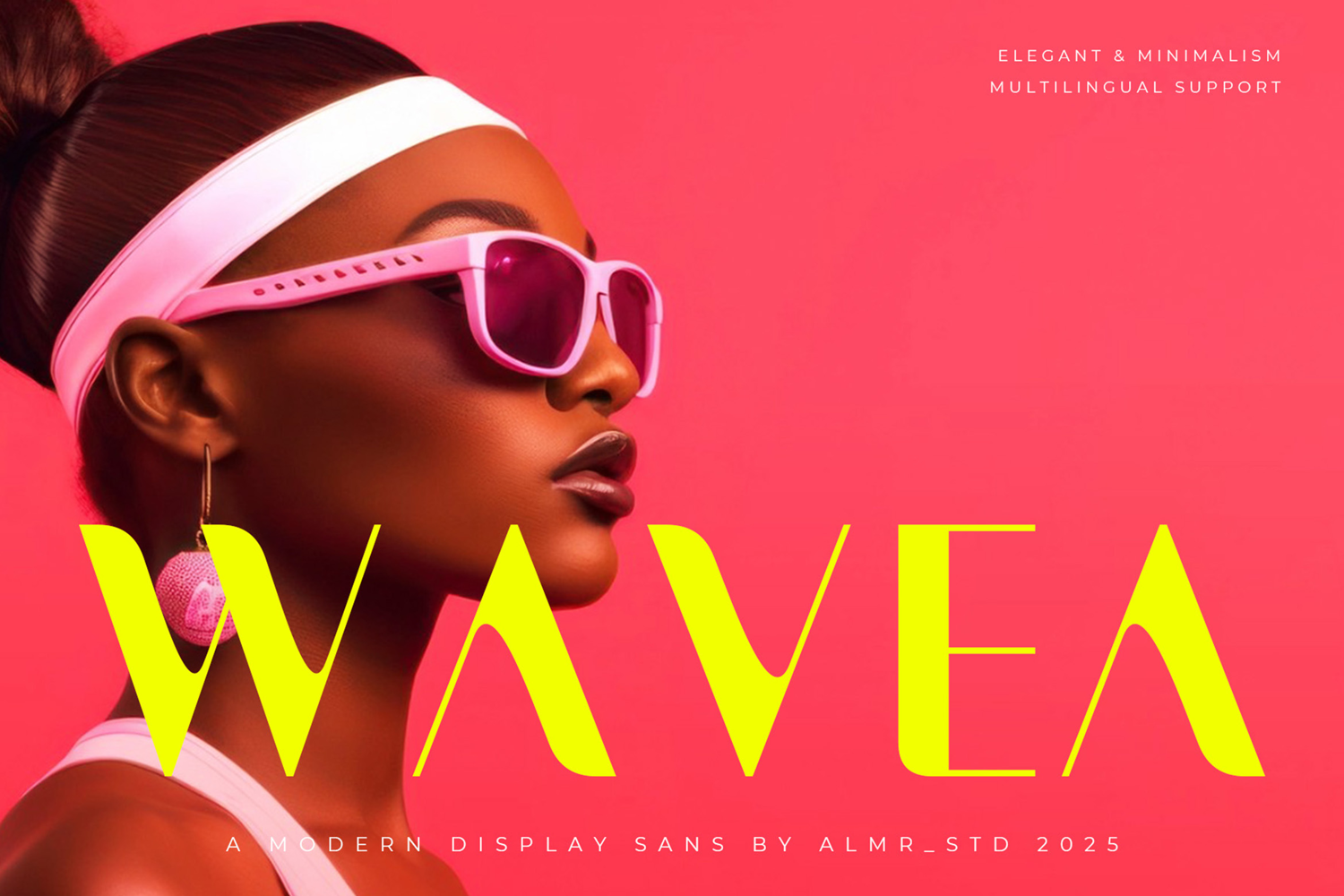
Wavea
Introducing Wavea - Modern display sans font. Wavea is a display, minimalis & modern sans font, This type of font is very suitable for your various needs such as branding projects, logos, social media posts, advertisements, labels, product packaging, photography, wedding designs, watermarks, invitation product designs, stationery, and any project.